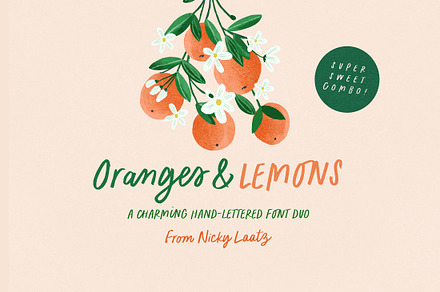
Oranges & Lemons Font Duo
A font duo pairing a bright informal script with a compact companion sans, in a fresh register suited to food and lifestyle work.
The sans is drawn narrow deliberately, so it can carry longer supporting text without demanding as much space as the script.
- Narrow companion sans
- Alternates and ligatures
Ideal for
- Food and beverage packaging
- Cafe and hospitality branding
- Stationery and card design
- Social and campaign graphics